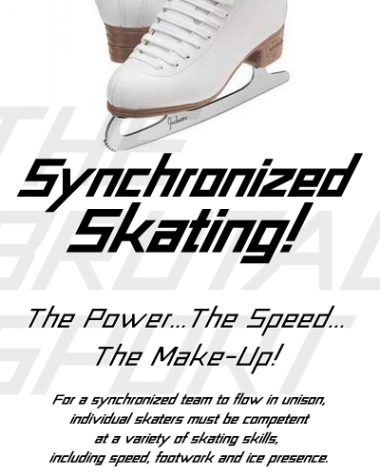
nice entry. the slick smoothness of your work belies the challenges in successfully creating an italics font in Fonstruct. congrats.
Updated a few Characters.
Oooh, look at that powerful lean. I don't know...with an edge that sharp, Funk King might have to guard those soccer balls ;-)
Hehe... and so the Fun Banter Begins!
I'm sure F_K is readying something that will make my powerfull lean fall flat on the floor! lol
You may call it humble, but it is a very capable font with great potential in sport magazine typesetting. The clean-cut shapes, sharp corners and forward leaning of the letters suggest something speedy. 10/10
I admire the strength and simplicity of these glyphs. The lack of optical correction brings tension to glyphs containing diagonal stroke prior to italicization. But they lean out of line a lot less than other italic jobs I have seen here :) And I think they turned in some of your coolest characters!
Try narrowing the c a little bit. Oh, and I don’t think you need to include SportsComp in the name of the font, just the tags.
I really dig the little corner detail defining the D. Did I miss that at first, or is it a new addition? In any case, I wanted to suggest you try cutting some of this font’s ‘square’ corners just like that. Particularly these obtuse ones like in the D (though you could try both), and even more specifically the ones on the top left of certain lowercase characters (c, e, o, m, n, etc.).
If you like the idea, if it’s really as slick and contemporary as I imagine, please try it on a clone (of course if you haven’t already). TheItalicJob has a great voice and needs very little tuning as it is.
This design feels so timeless and solid. I look at your sample and feel like I am about to experience a classy commercial selling the Swiss version of a sports watch. Perhaps I am responding in part to the word “Synchronized” (funny that you chose this over “Speed Skating”, though I see why you wanted to included y). Still, I notice throughout this palpable measured regularity. It’s a precisely engineered, if coldly calculated, quality as if this were designed by metronome.
Kudos on the impressive consistency and usability!
@Will.i: the reason I have "SportsComp." on the name is because I had released a font with that same name a while back, at the time I wasn't sure about the result so I turned it private again. Since this is a diferent font, to avoid confusion I added "SportsComp." to the name. It's funny you say stuff like cutting the square corners cause I tried that with the older font :) Maybe I'll try it on this one when the competition is over.
A really dynamic piece of work jm.
Do they have to wear lots of make-up and nose clips in sychronized skating? ..... Oh no ... that's synchronized swimming isn't it? :)
The Sample
I think I cut my finger on this!
I've always loved sharp fonts, and this one is on the edge! 10/10